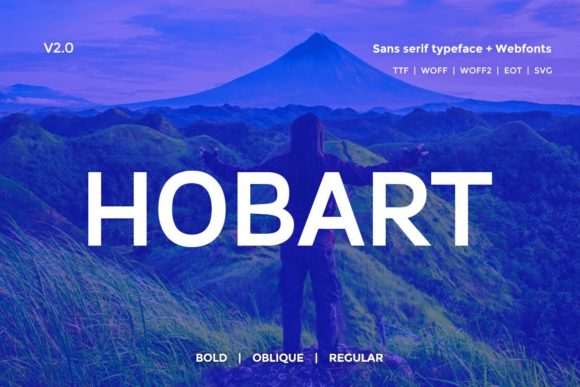
Introducing Hobart Sans, the epitome of modern minimalism in font design. This sans serif typeface, crafted by Webhance, embodies the essence of simplicity and elegance. With its array of weights, Hobart Sans effortlessly maintains the highest level of minimalism, ensuring your designs exude a timeless appeal.
Hobart Sans draws inspiration from classic minimal typefaces of the 20th century, seamlessly blending traditional aesthetics with contemporary styles. Each meticulously crafted character reflects the dedication to design excellence, resulting in a font that exudes sophistication and versatility.
Immerse yourself in the world of Hobart Sans and let your creativity flourish. Its clean lines and understated presence make it the perfect choice for a wide range of design projects, from branding and web design to editorial and advertising. Elevate your designs with the understated charm and refined elegance of Hobart Sans.
Discover the beauty of simplicity and embrace the power of minimalism. Hobart Sans empowers you to create designs that speak volumes without uttering a single word. Its versatility allows you to effortlessly convey your message, ensuring that your designs leave a lasting impression.
Make Hobart Sans your go-to font for conveying messages with clarity and impact. Its readability and legibility make it ideal for both print and digital media, ensuring your designs shine brightly across all platforms.
Join the ranks of design enthusiasts who have embraced the allure of Hobart Sans. Experience the joy of creating designs that are both visually stunning and effortlessly elegant. Let Hobart Sans be your creative companion, guiding you towards design excellence.